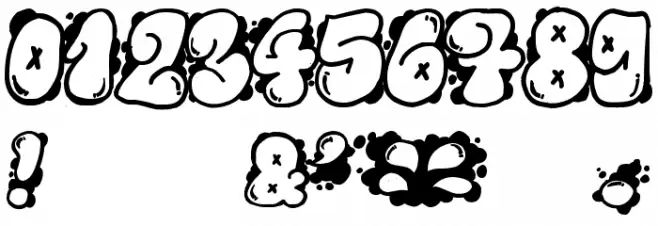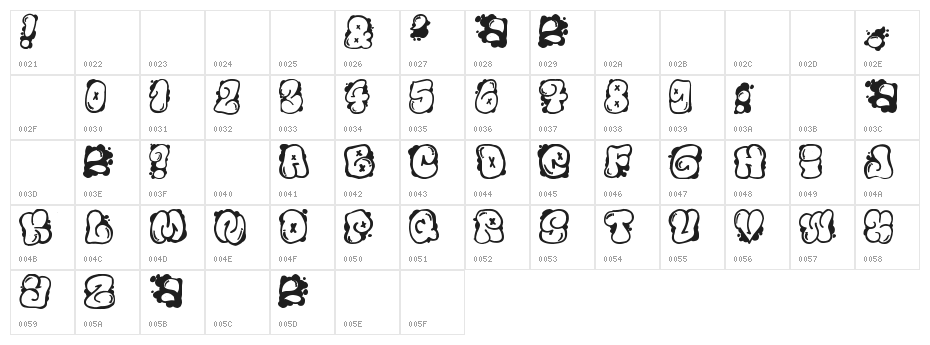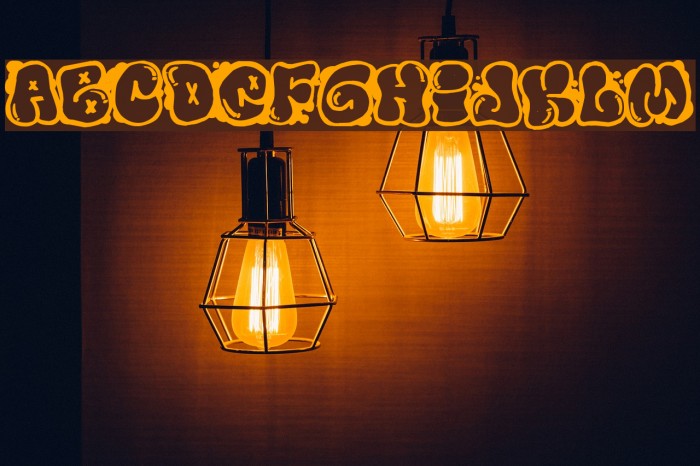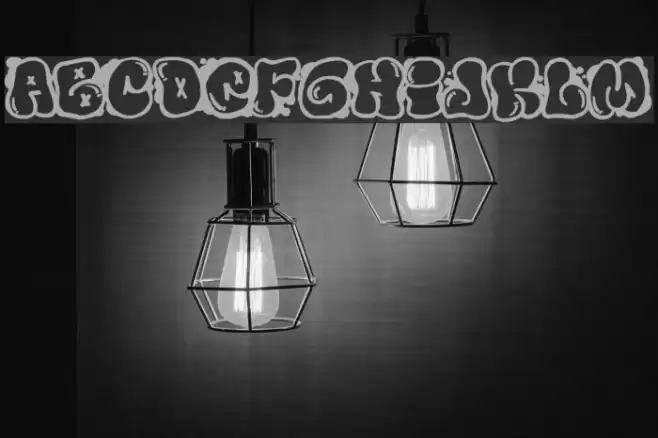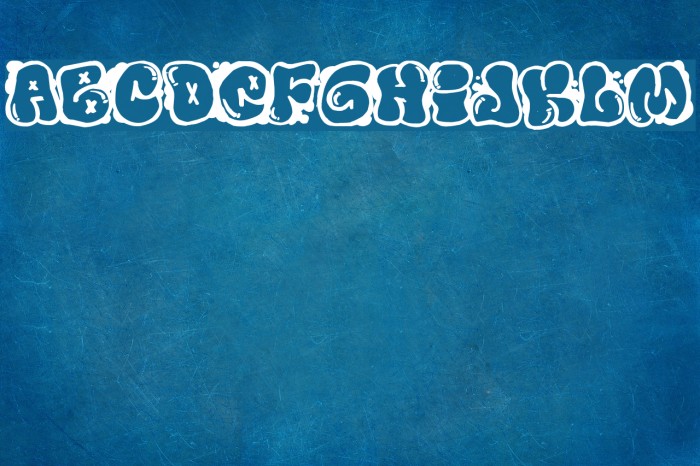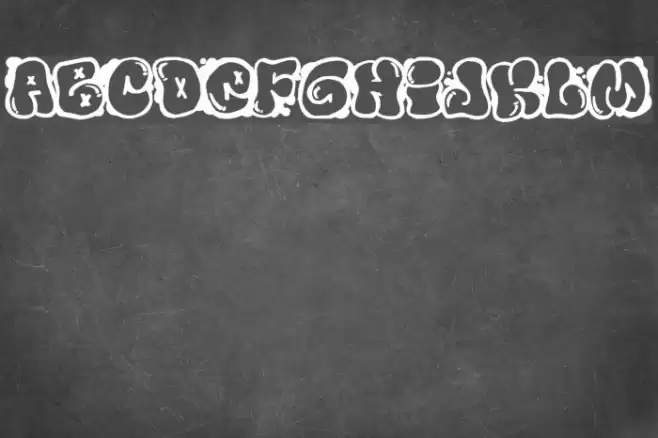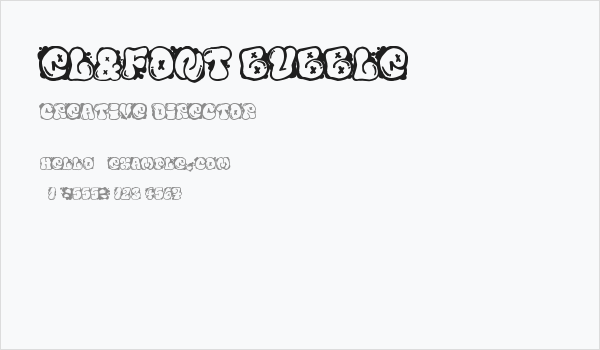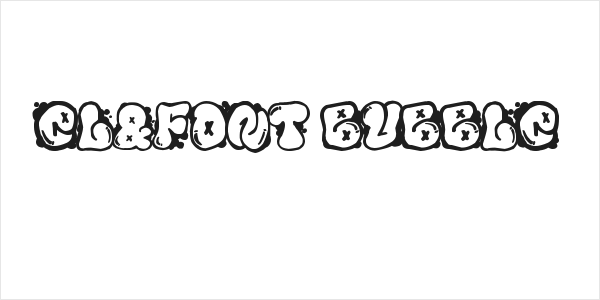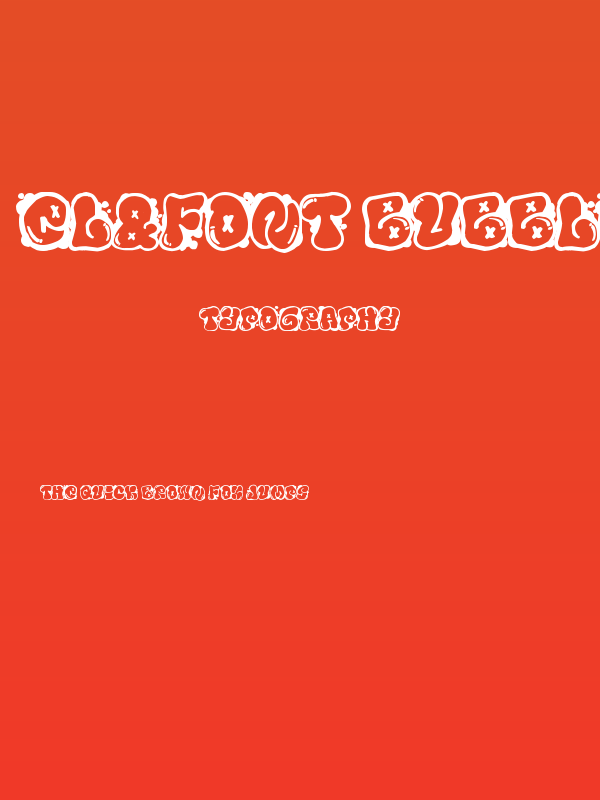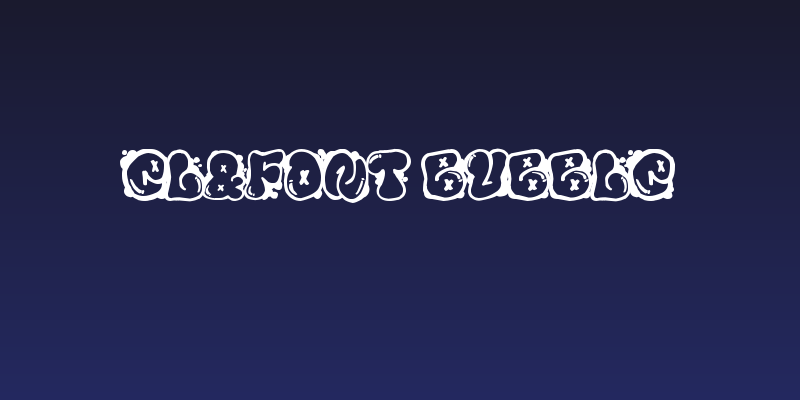
El&Font Bubble Font
El&Font Bubble Description
This playful and vibrant font features a bubbly, cartoonish style with thick, rounded edges and a bold presence. Each character is designed with an exaggerated, inflated appearance, giving it a fun and whimsical feel. The font's unique design includes irregular shapes and playful details, making it stand out in any creative project. The characters are tightly packed, enhancing the font's lively and energetic vibe. Its bold strokes and high contrast between the thick outlines and the inner spaces create a striking visual impact. This font is perfect for projects that aim to convey a sense of fun, creativity, and playfulness.
| Use Case | Logos, Posters, Headlines |
| Proposed Projects | Ideal for children's books, party invitations, comic strips, and playful branding. |